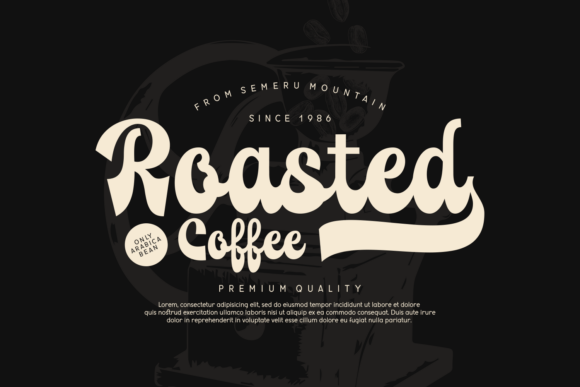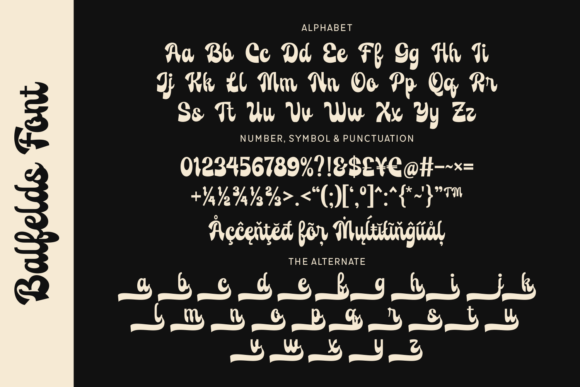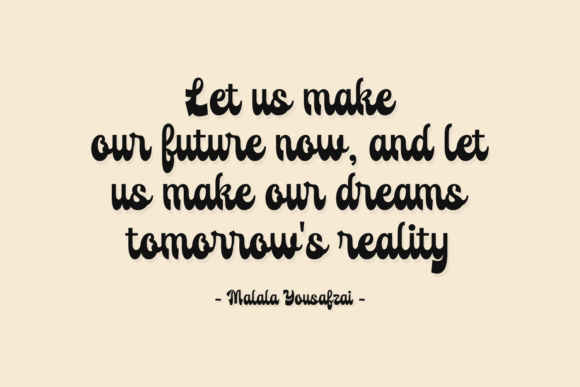
Balfelds Font: Elevate Your Designs with a Bold and Dynamic Script Font
In the world of typography, fonts play a crucial role in conveying the tone and personality of a brand or design. For designers and crafters looking to make a statement, Balfelds Font is an excellent choice. This bold and dynamic script font boasts a vintage-inspired style that is sure to capture attention. With its thick strokes and smooth curves, Balfelds Font is perfect for creating logos, branding, headlines, and retro-themed designs that exude confidence and energy.
The Characteristics of Balfelds Font
Balfelds Font is a script font that draws inspiration from classic typography. Its thick strokes and smooth curves give it a distinctive look that is both bold and elegant. The font’s vintage-inspired style makes it perfect for designs that require a touch of nostalgia and sophistication. Whether you’re creating a logo, headline, or branding materials, Balfelds Font is sure to make a lasting impression.
Why Choose Balfelds Font?
So, why choose Balfelds Font over other fonts? Here are just a few reasons:
- Confidence and Energy: Balfelds Font exudes confidence and energy, making it perfect for designs that require a bold statement.
- Vintage-Inspired Style: The font’s vintage-inspired style makes it perfect for retro-themed designs, logos, and branding materials.
- Versatility: Balfelds Font is versatile and can be used for a wide range of designs, from logos and headlines to packaging and advertising materials.
- Ease of Use: The font is easy to read and works well in both digital and print formats.
How to Use Balfelds Font
Using Balfelds Font is easy. Here are a few tips to get you started:
- Pair it with a Sans-Serif Font: Pair Balfelds Font with a sans-serif font to create a striking contrast.
- Use it for Headlines: Use Balfelds Font for headlines and titles to create a bold and eye-catching effect.
- Add a Pop of Color: Add a pop of color to your design to make it stand out.
Design Ideas with Balfelds Font
Balfelds Font is a versatile font that can be used for a wide range of designs. Here are a few ideas to get you started:
- Logos: Use Balfelds Font to create a bold and memorable logo for your brand.
- Branding Materials: Use the font for branding materials such as business cards, brochures, and letterheads.
- Headlines: Use Balfelds Font for headlines and titles to create a bold and eye-catching effect.
- Retro-Themed Designs: Use the font for retro-themed designs such as posters, flyers, and packaging materials.
In conclusion, Balfelds Font is a bold and dynamic script font that is perfect for designers and crafters looking to make a statement. Its vintage-inspired style, thick strokes, and smooth curves make it ideal for logos, branding, headlines, and retro-themed designs. With its confidence and energy, Balfelds Font is sure to elevate your designs and make a lasting impression.